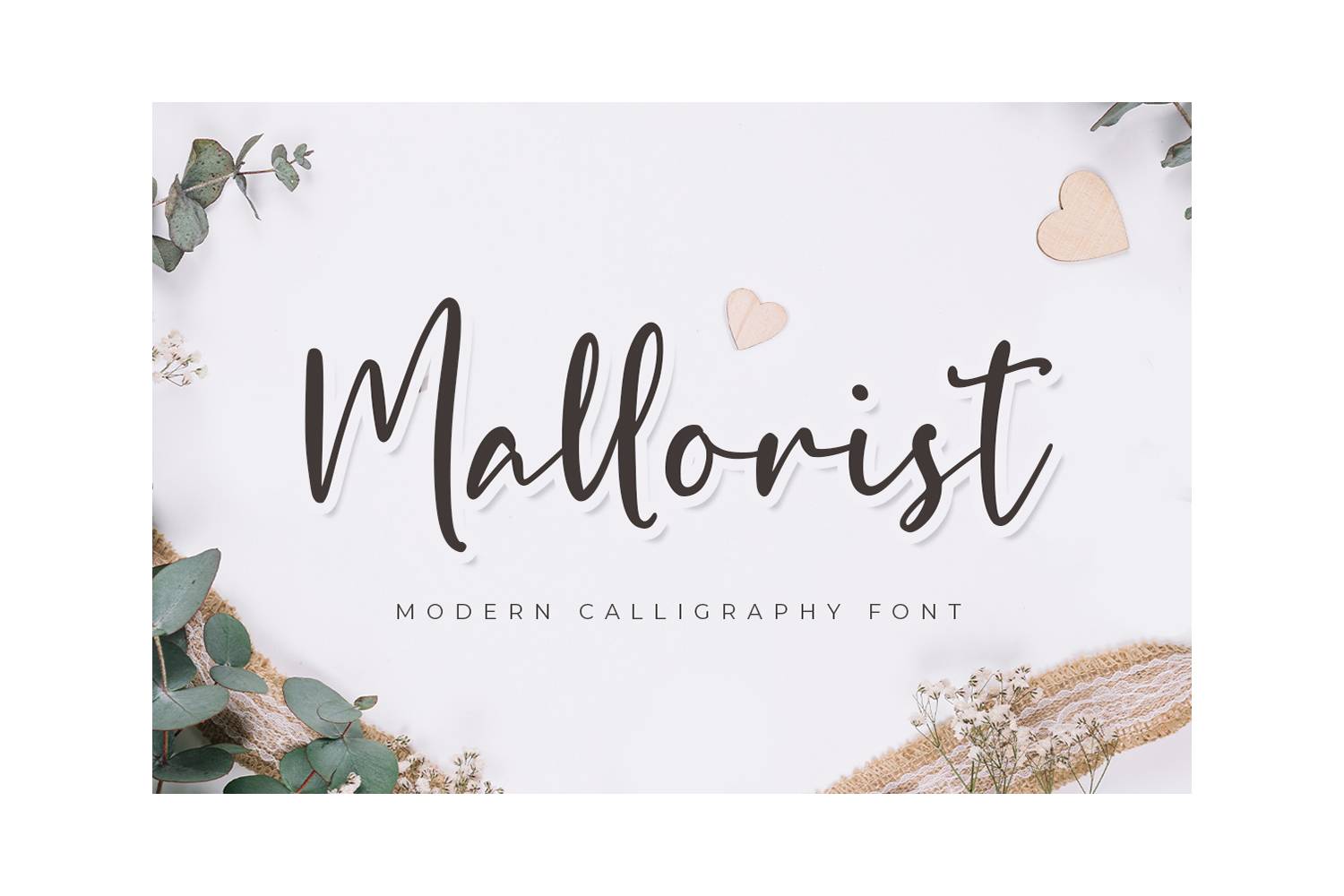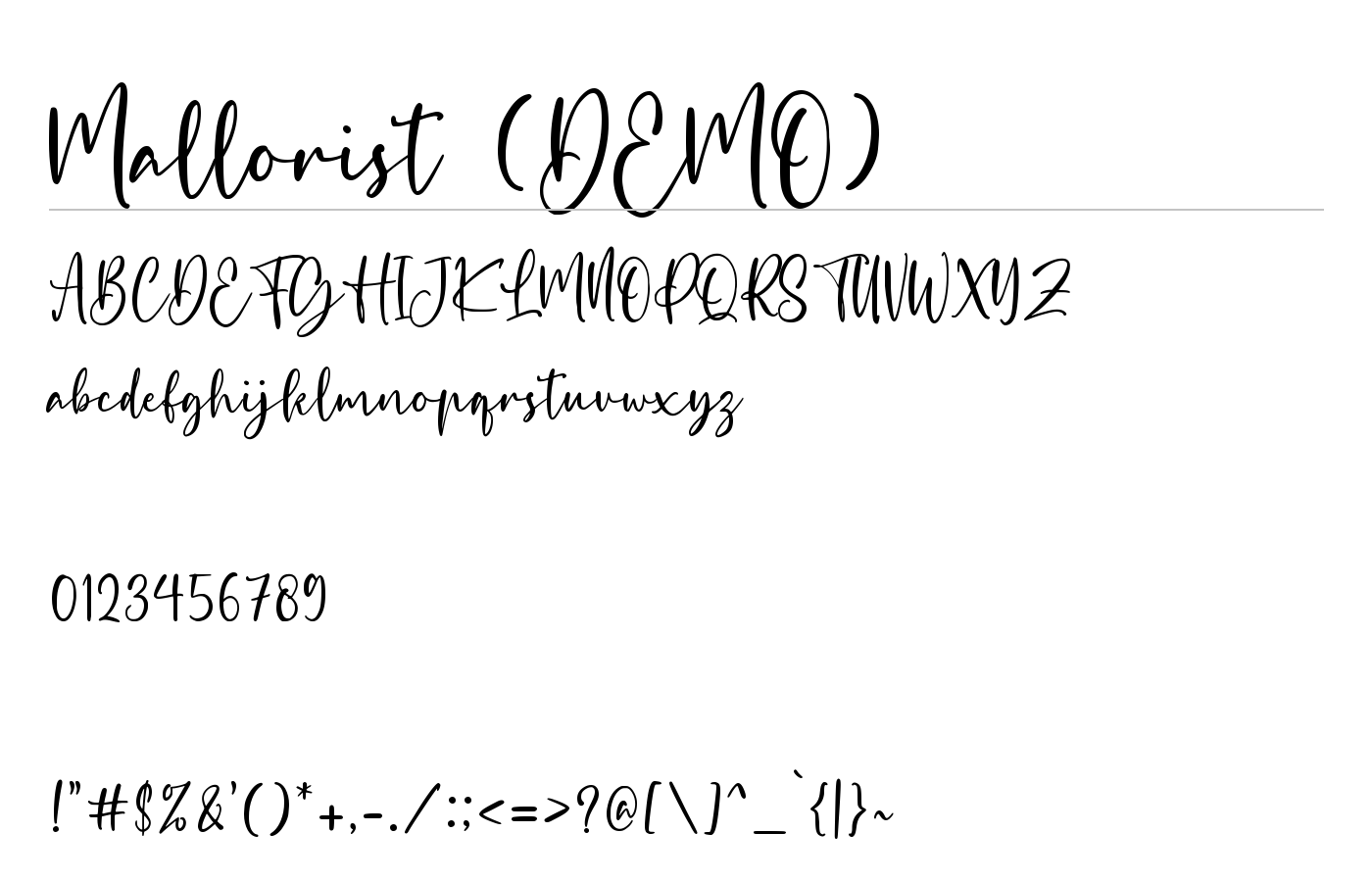
Mallorist is a lively and elegant handwritten script font featuring tall, slender letterforms with smooth, flowing strokes that create a natural, personal feel. Its light weight and airy spacing make it ideal for creative projects that seek a casual yet refined touch, such as invitations, branding, and social media graphics. This font brings a friendly, artistic vibe that is perfect for stylish, approachable designs.
Mallorist Font
About Mallorist Font
| Font family | Mallorist Font |
| Designer | Fajar Abdul Fatah - Nurf Designs |